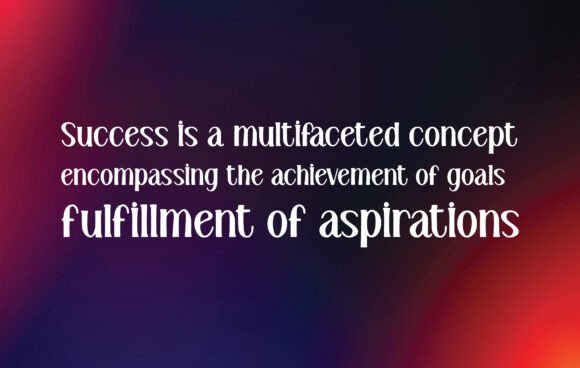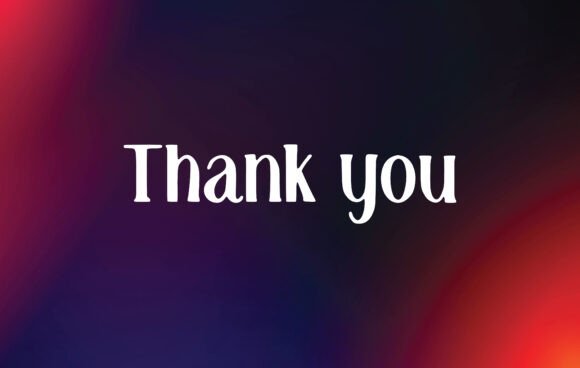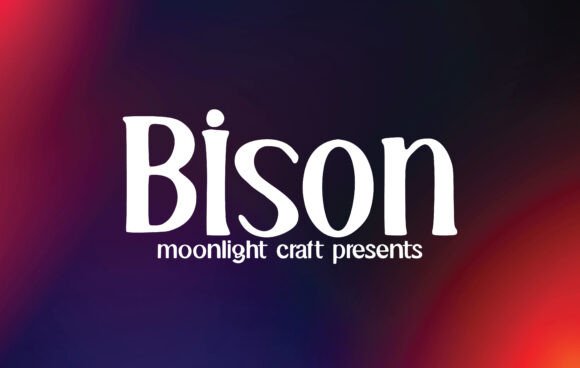
The Bison Font: Your New Go-To for Creative Projects
Have you ever been in the middle of a design project, and suddenly, you’re stuck on finding the perfect font? I recall a particularly frustrating experience while working on a client’s branding materials. The project required a font that was both stylish and versatile, but I just couldn’t seem to find the right fit. That was until I discovered the Bison Font. This gem has become a staple in my collection, and I’m excited to share its awesomeness with you! 😊
- ✨ Perfect Blend of Style and Versatility: The Bison Font strikes an excellent balance between style and readability, making it suitable for a wide range of creative projects.
- ✅ Easy to Read: Its clear and clean design ensures that your text is easily readable, whether you’re using it for titles or body text.
- 💼 Multipurpose: From magazine headlines and t-shirts to social media posts, branding materials, wedding invitations, and greeting cards, this font fits right in.
While the Bison Font is incredibly versatile, there are a few minor things to keep in mind:
- 🤔 Limited Availability of Advanced OpenType Features: While it does offer some OpenType features, it might not have the extensive range you’re used to with other fonts.
- ⚠️ May Require Manual Kerning: For certain projects, especially those requiring precise typography, you might need to adjust the kerning manually.
The Story Behind Bison Font
The Bison Font was crafted with the modern creative in mind. Inspired by the rugged yet elegant nature of bison, its designers aimed to create a font that embodies both strength and sophistication. Through meticulous attention to detail and a passion for typography, the Bison Font was born — a versatile and stylish addition to any design project.
Q: Is the Bison Font suitable for body text?
A: Absolutely! Its readability and clean design make it an excellent choice for both titles and body text.
Q: Does the Bison Font support OpenType features?
A: While it offers some OpenType features, for the most advanced typographic capabilities, you might want to check the specific features supported.
Q: Is the Bison Font available in different weights?
A: Yes, the Bison Font comes in multiple weights, allowing for greater flexibility in your designs.